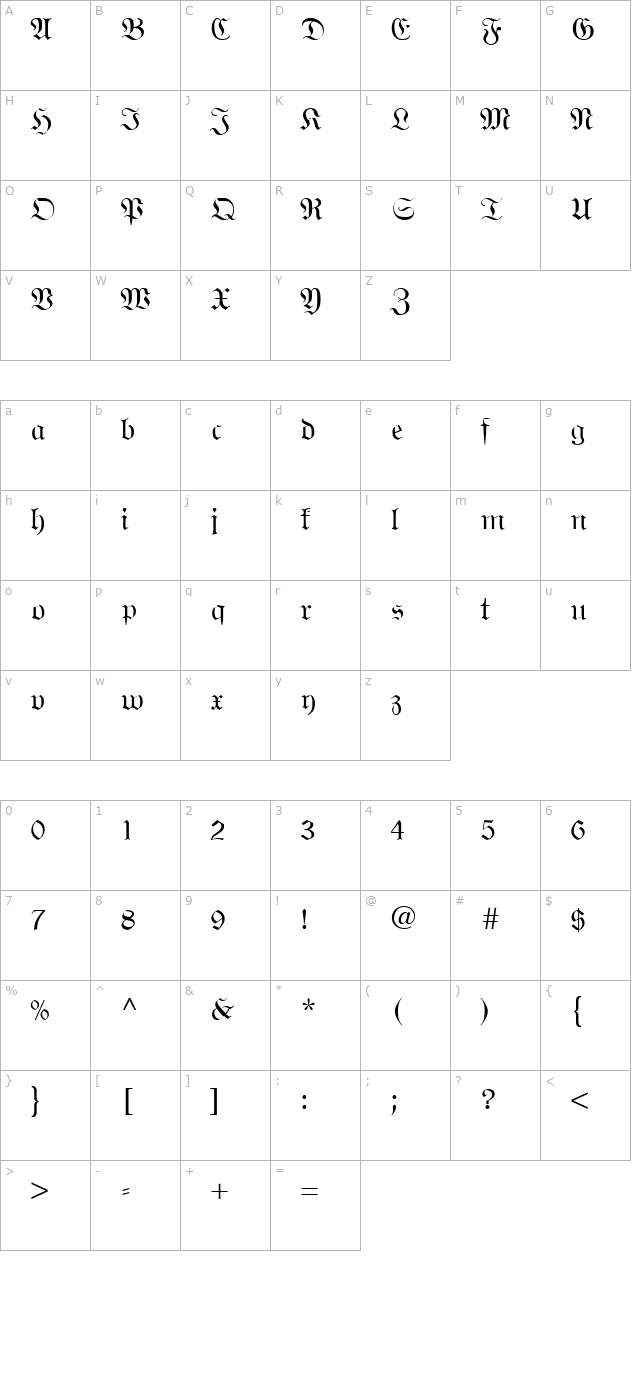
Wittenberg Font . The font subfamily is bold. Wittenberger fraktur font family was designed by monotype design studio and published by monotype. Official wittenberg university logos are intended for use by media organizations and opponent schools. Wittenberger fraktur mt bold is the perfect font for all your fun designs. The wittenberg gothic logo was designed by a typographer specifically for the university and unveiled in the early 1970s. Made in 1904 in 2 weights. Wittenberger fraktur contains 2 styles and family. The font family is wittenberger frakt mt. One of the earliest monotype faces, issued about 1906 in two weights, normal and semibold. The standard gothic wittenberg logo, the flying w logo, the university seal, and tiger athletics logos. Wittenberg athletics logos & graphic style guide. Click here to learn more about. Thousands of designers (famous or not) use the image font detection system to find a font or similar free fonts from an image.
Wittenberg Font Made in 1904 in 2 weights. The font subfamily is bold. Wittenberger fraktur mt bold is the perfect font for all your fun designs. The font family is wittenberger frakt mt. The standard gothic wittenberg logo, the flying w logo, the university seal, and tiger athletics logos. Thousands of designers (famous or not) use the image font detection system to find a font or similar free fonts from an image. Official wittenberg university logos are intended for use by media organizations and opponent schools. Wittenberg athletics logos & graphic style guide. Made in 1904 in 2 weights. Wittenberger fraktur font family was designed by monotype design studio and published by monotype. Wittenberger fraktur contains 2 styles and family. Click here to learn more about. The wittenberg gothic logo was designed by a typographer specifically for the university and unveiled in the early 1970s. One of the earliest monotype faces, issued about 1906 in two weights, normal and semibold.
Download free Wittenberger Fraktur MT Std Regular font Wittenberg Font Made in 1904 in 2 weights. Wittenberger fraktur font family was designed by monotype design studio and published by monotype. One of the earliest monotype faces, issued about 1906 in two weights, normal and semibold. Wittenberger fraktur contains 2 styles and family. The standard gothic wittenberg logo, the flying w logo, the university seal, and tiger athletics logos. Official wittenberg. Wittenberg Font.
Identity Marks & Logos Wittenberg University Wittenberg Font Wittenberger fraktur mt bold is the perfect font for all your fun designs. One of the earliest monotype faces, issued about 1906 in two weights, normal and semibold. The font family is wittenberger frakt mt. Wittenberger fraktur contains 2 styles and family. Click here to learn more about. The standard gothic wittenberg logo, the flying w logo, the university seal,. Wittenberg Font.
Martin Luther and the first iconoclasm of reformation in Wittenberg Font Click here to learn more about. The wittenberg gothic logo was designed by a typographer specifically for the university and unveiled in the early 1970s. Wittenberger fraktur contains 2 styles and family. Thousands of designers (famous or not) use the image font detection system to find a font or similar free fonts from an image. The font subfamily is bold.. Wittenberg Font.